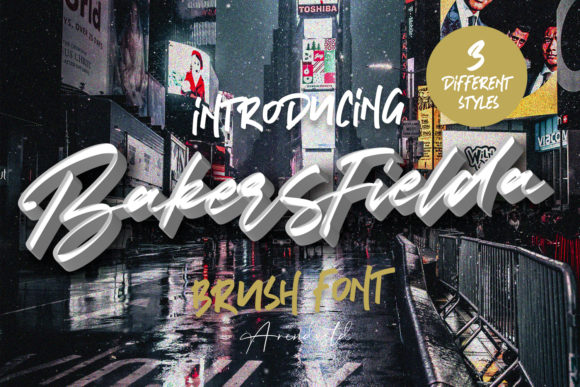
Introducing Bakersfield Font: The Wild and Wacky Display Font That Makes Your Designs Pop!
In a world of ordinary fonts, Bakersfield Font stands out as an extraordinary creation – a display font that oozes fun, quirkiness, and authenticity. This captivating font is the brainchild of Arendxstudio, a visionary design studio renowned for crafting fonts that ignite imagination and leave a lasting impression.
Bakersfield Font is not just a collection of letters; it's an expression of creativity, a celebration of individuality. Its bold and playful characters dance across the page, capturing attention and injecting life into your designs. Whether you're creating bold t-shirts, eye-catching posters, or stunning social media graphics, Bakersfield Font is the perfect choice to make your words stand out and leave a lasting impact.
With Bakersfield Font, you have the power to transform ordinary designs into captivating masterpieces. Its playful and energetic vibe is perfect for adding a touch of whimsy to your projects, while its bold and confident strokes command attention and make your message impossible to ignore. It's the ideal font for creating designs that resonate with your audience, leaving them with a smile on their face and a lasting impression of your brand.
But Bakersfield Font isn't just about aesthetics; it's also incredibly versatile. Its unique style lends itself to a wide range of design projects, from playful children's books to trendy fashion magazines, from vibrant event posters to quirky social media posts. No matter your creative vision, Bakersfield Font has the versatility to bring it to life, making it a must-have tool for any designer seeking to make a statement.